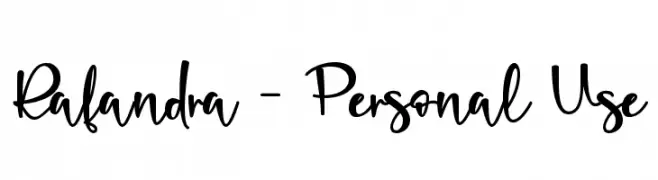
A whimsical and flowing script font with elegant, elongated letterforms.
A playful, bold handwritten font with a lively and energetic style.
A lively and expressive handwritten font with fluid strokes and a playful aesthetic.
A lively and expressive handwritten font with fluid strokes and dynamic style.
An elegant script font with intricate swirls and flowing design.
A playful, handwritten cursive font with a smooth and flowing style.
An elegant script font with flowing, decorative cursive letters.
A playful, handwritten script font with a modern and energetic style.
A flowing, elegant script font with artistic curves and loops.
An elegant and flowing script font with artistic cursive strokes.